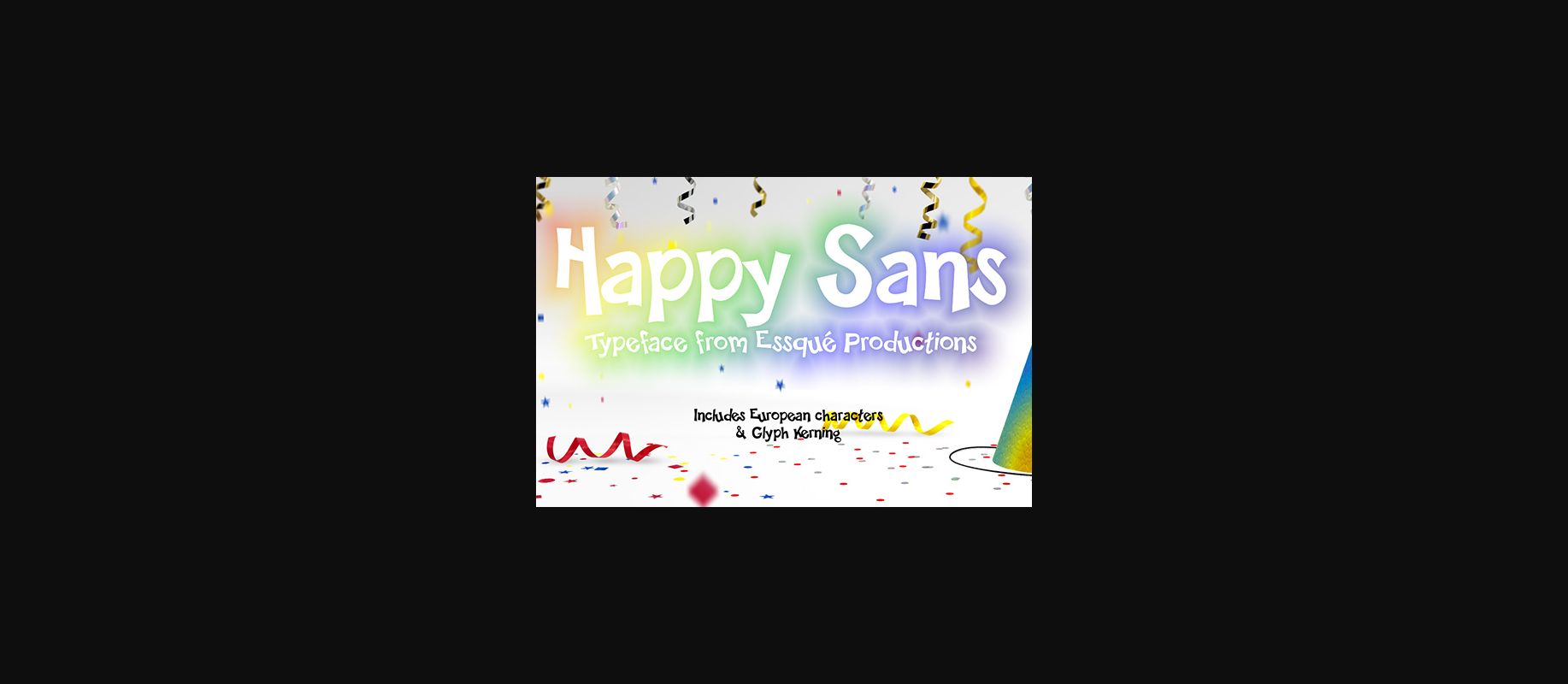
Happy Sans Font
About Happy Sans Font
The Happy Sans is a whimsical font. It was created as a by product of another font; Happy Serif. It has some normalcy to weight distribution and size ratios amongst the characters. This variant took off in popularity over it’s older sibling.